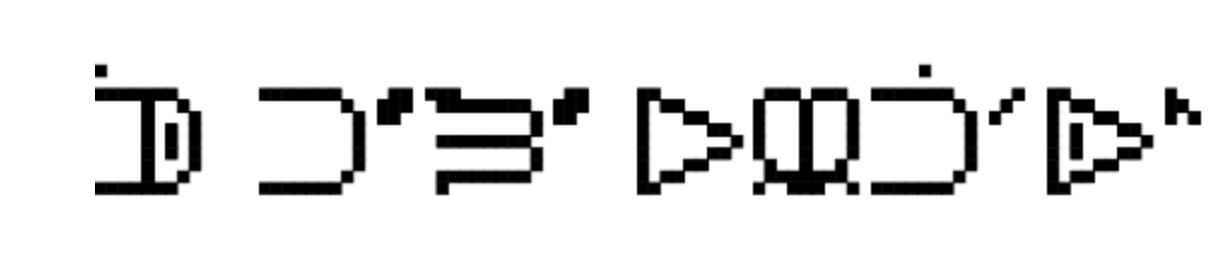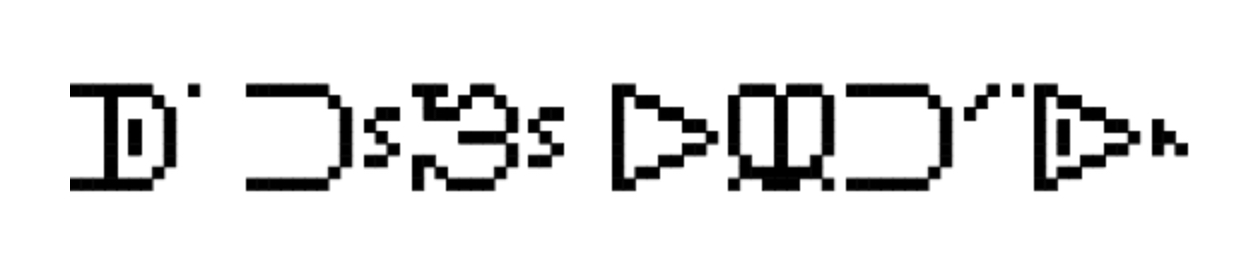
Kaktovik Numerals originated from Alaska in the United States. Here's the Wikipedia article with that text highlighted if you would like to see it
But they do exist in Canada too?
There's no way I tried to copy you, I just like pixel unicode fonts like 7x12.
Many glyphs are incorrect due to the update for the Unicode Standard 15.0
Wrong
Correct
The 'h' and 's' should be placed in the middle instead on the top